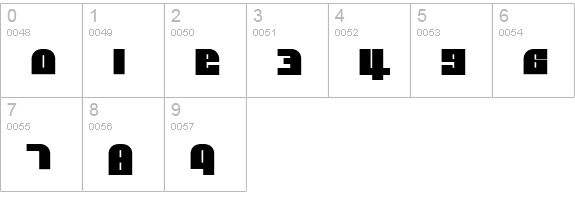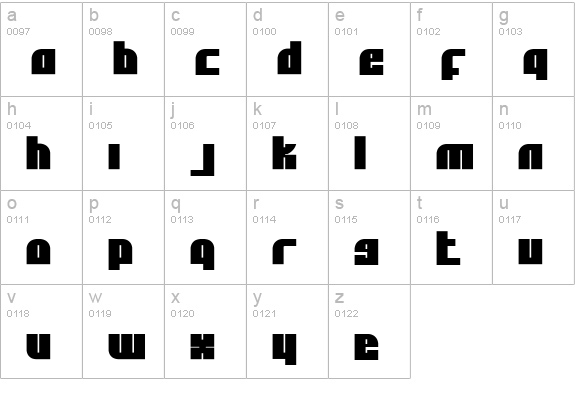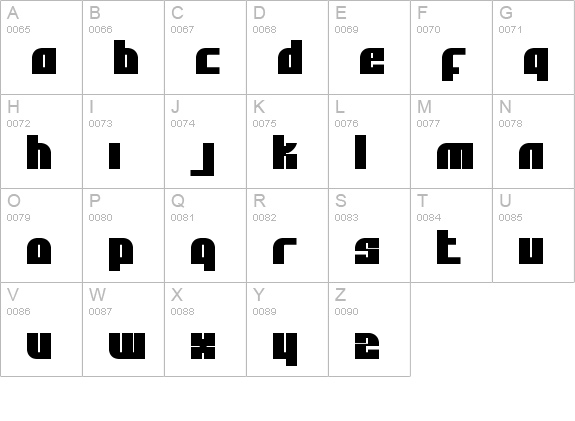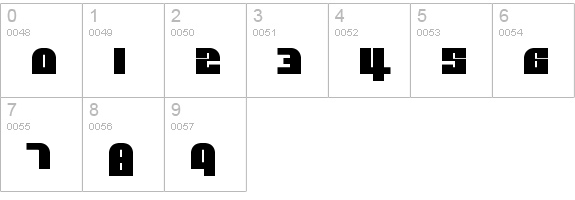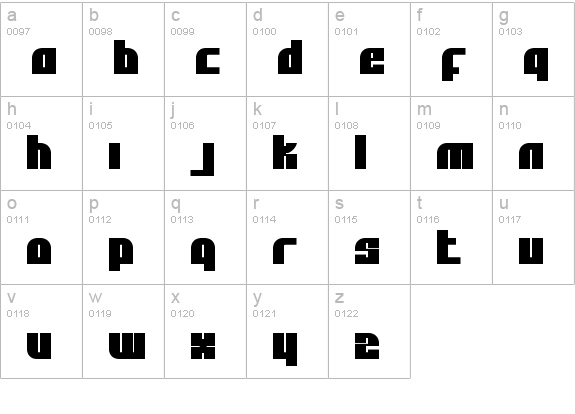
Alpha Flight Solid Font Details
Alpha Flight Solid is a bold and eye-catching font that exudes strength and confidence. With its solid and sturdy appearance, this font is perfect for grabbing attention and making a statement. The geometric shapes and clean lines give Alpha Flight Solid a modern and sleek look, making it ideal for a variety of design projects. Whether you are creating posters, logos, or branding materials, this font will add a touch of sophistication and professionalism to your work. The best part is that Alpha Flight Solid is available for free download at FontsMarket.com. This means you can easily access this stylish font and use it in your projects without any cost. Don't miss out on the opportunity to enhance your designs with the bold and impactful Alpha Flight Solid font. Download it now and take your creations to the next level!